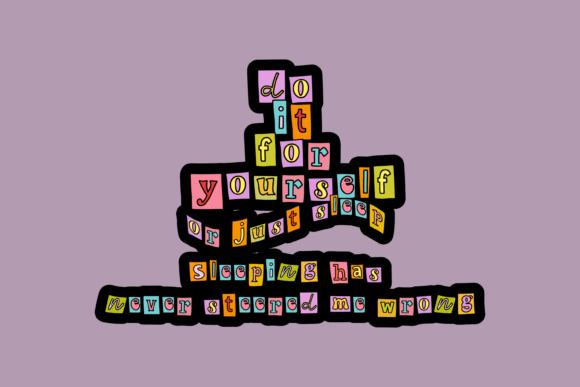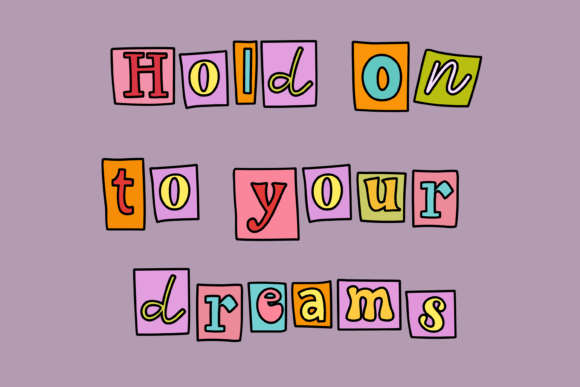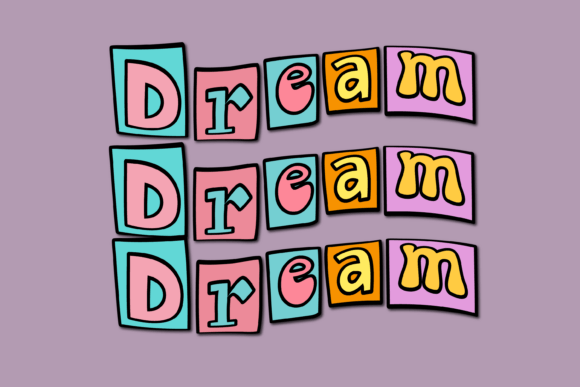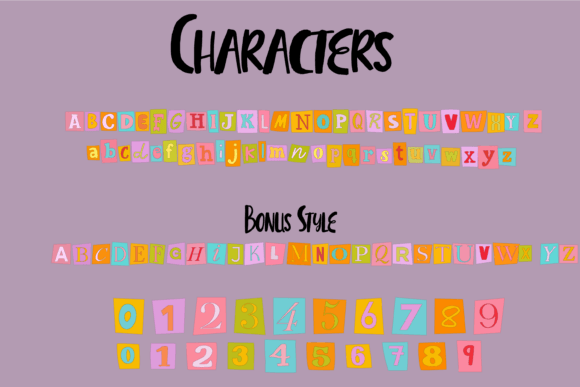
Unleash Your Creativity with Colorful Collage Font
Are you tired of using the same old fonts for your designs? Do you want to add a playful and artistic touch to your projects? Look no further than our vibrant Colorful Collage Font! This unique font features two distinct styles, each bursting with color and personality, allowing you to create stunning typographic designs that will make your text stand out.
What is Colorful Collage Font?
Our Colorful Collage Font is a one-of-a-kind font that combines the beauty of collage art with the versatility of a digital font. With two distinct styles to choose from, you can add a fun and whimsical vibe or a bold statement to any project. Whether you’re designing invitations, posters, social media graphics, or any other visual material, this font is perfect for making your text pop.
Key Features of Colorful Collage Font
- Two distinct styles: Each style is bursting with color and personality, giving you the flexibility to choose the perfect look for your project.
- Alternate characters: With a variety of alternate characters for each letter, you can mix and match to create an endless array of stunning typographic designs.
- Experiment with different styles: Try out both styles to see which one works best for your project.
- Mix and match characters: Use the alternate characters to create unique and interesting typographic designs.
- Play with color: Don’t be afraid to experiment with different colors and combinations to make your text stand out.
Whether you’re a seasoned designer or a crafter looking to add a personal touch to your projects, our Colorful Collage Font is perfect for:
- Creating eye-catching invitations: Use our font to create stunning invitations for parties, weddings, and other special occasions.
- Designing social media graphics: Add a playful and artistic touch to your social media graphics and make them stand out.
- Making posters and flyers: Use our font to create bold and eye-catching posters and flyers that will grab attention.